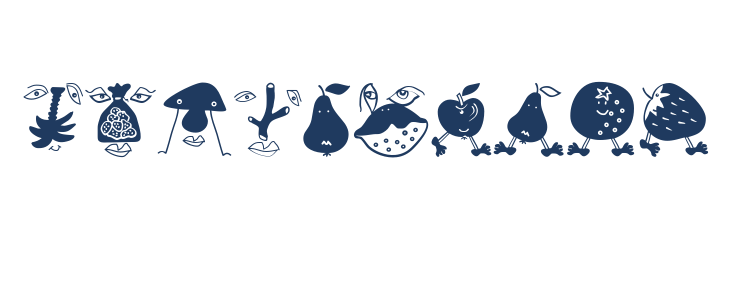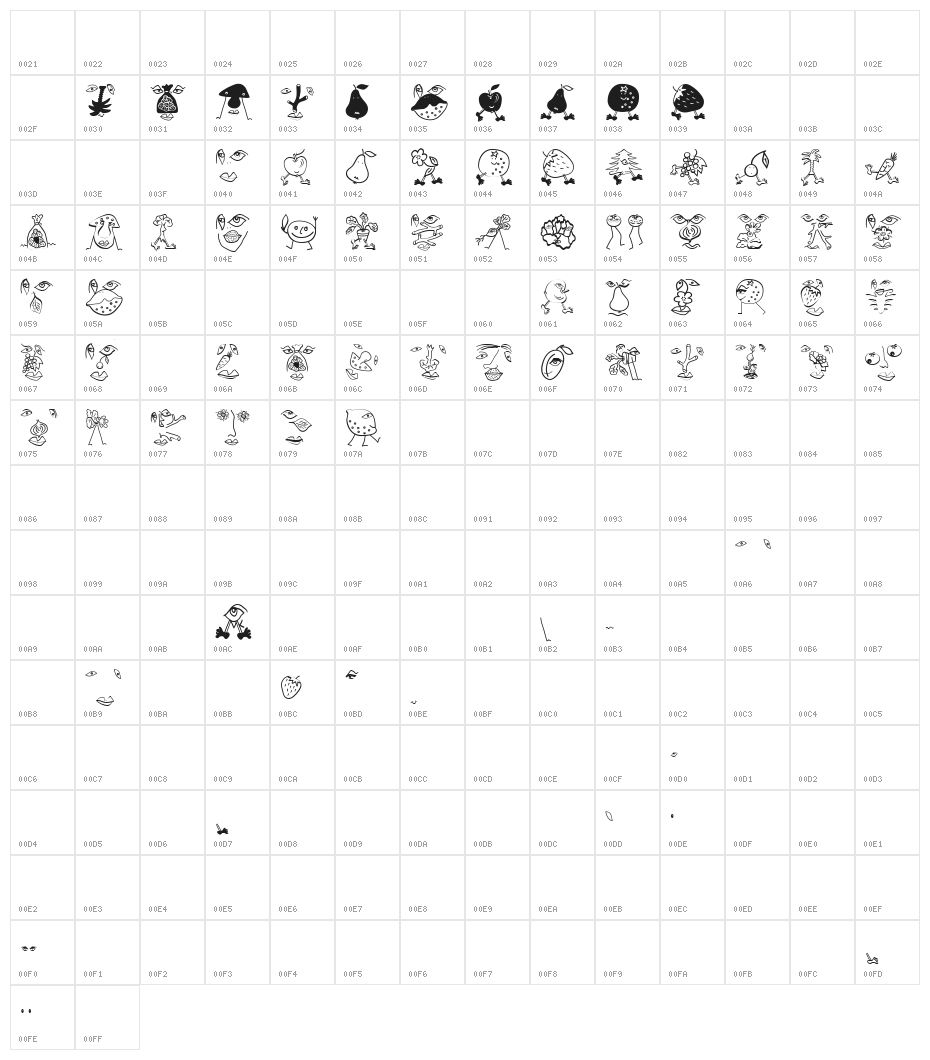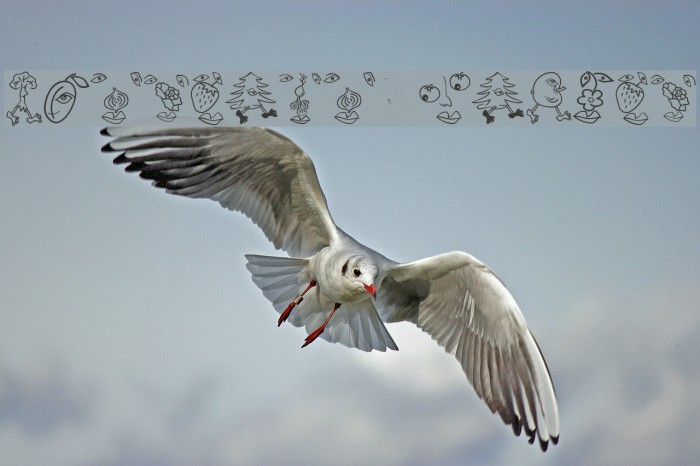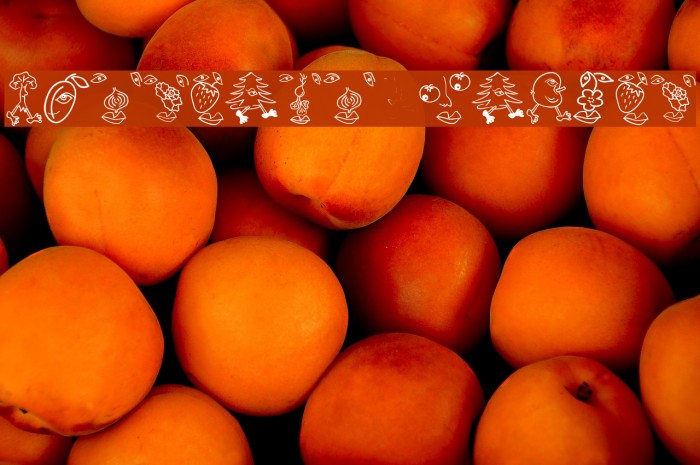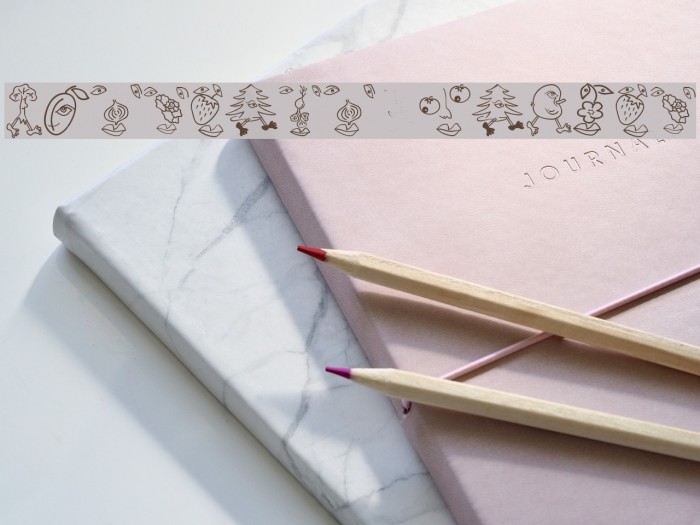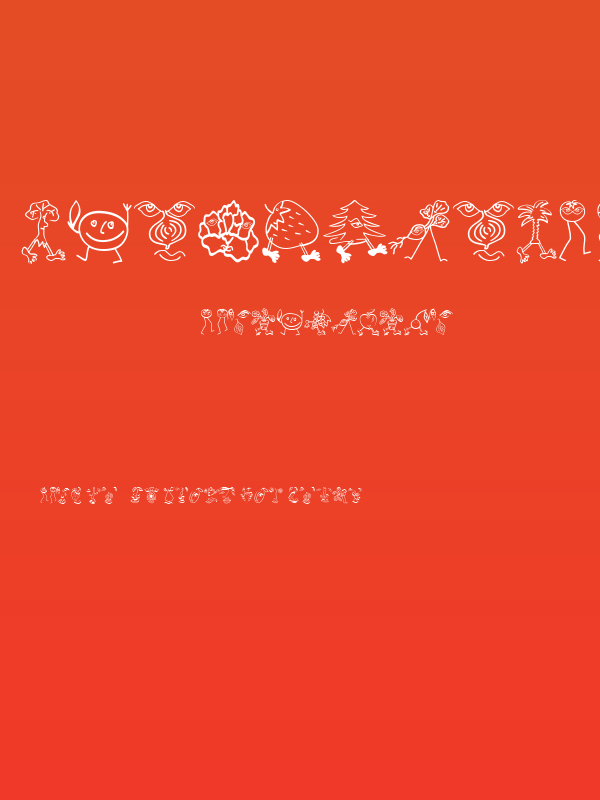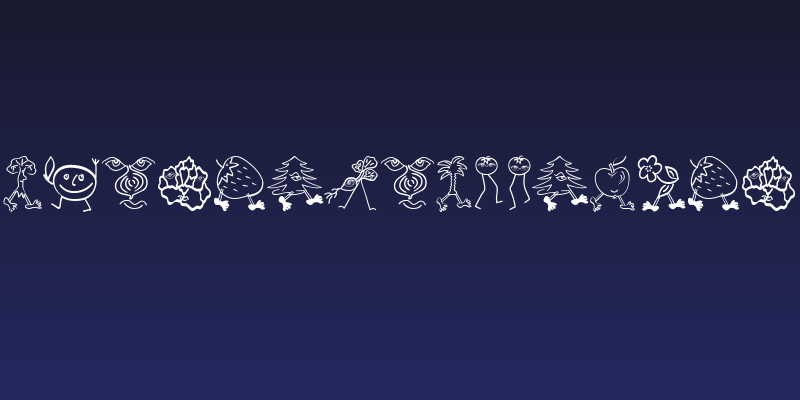
MouseFruitFaces Font
MouseFruitFaces Description
This is a whimsical and playful collection of characters that combine elements of fruits, vegetables, and abstract faces. Each character is uniquely designed with a blend of organic shapes and facial features, creating a lively and imaginative visual experience. The style is reminiscent of doodles or sketches, with a hand-drawn quality that adds to its charm. The characters are expressive, with exaggerated features such as eyes, lips, and limbs, often incorporating elements like leaves or stems. This collection is not a traditional font but rather a series of illustrative icons that convey a sense of fun and creativity.
| Overall Style | Whimsical |
| Use Case | Illustrations, Branding, Art Projects |
| Proposed Projects | Ideal for children's books, educational materials, playful branding, or creative art projects. |